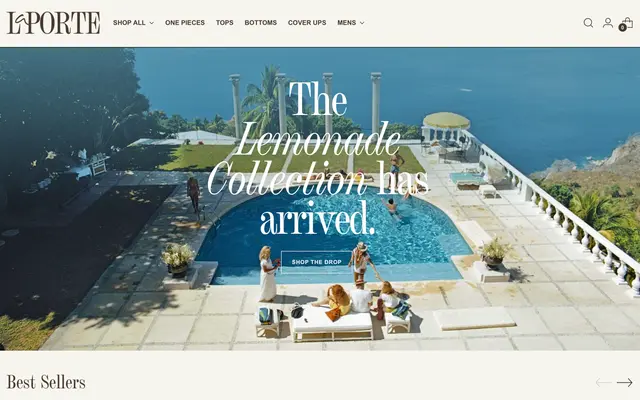
Chapman
A high-contrast serif rooted in engraver typefaces and Scotch Roman tradition, offered across condensed, standard and extended widths with four weights each.
Drawn from the conventions of historic all-capital engraver faces and Scotch Roman lowercase models, Chapman offers large ball terminals, broad flat bracketed serifs and sharply vertical stress across 24 styles. The three-width structure, condensed through extended, gives the family genuine range for both tight editorial settings and generous display work. Idiosyncrasies from the source genres are selectively tamed or exaggerated, producing a face that feels familiar without being derivative.
Chapman draws explicitly from engraver typefaces and Scotch Roman models, exhibiting the characteristic high contrast, broad flat bracketed serifs, large ball terminals and sharply vertical stress of that tradition.